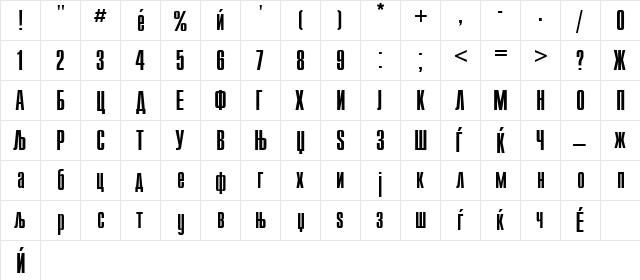
X_Compact Normal
Design Context for X_Compact Typeface
X_Compact takes a measured approach to typography — its balanced proportions and neutral character make it a reliable workhorse for both digital and print work. Its narrow stance lets it pack a punch even in space-constrained designs.